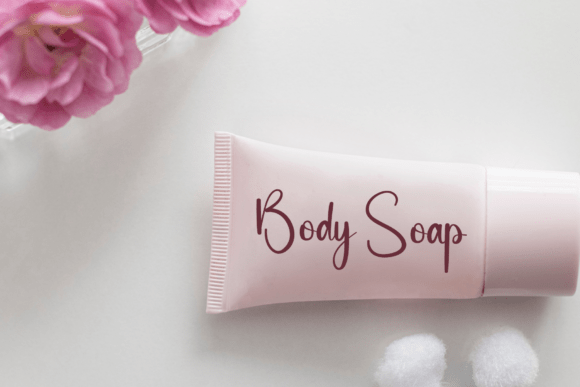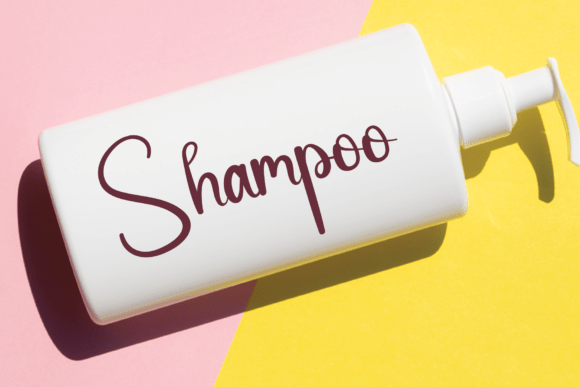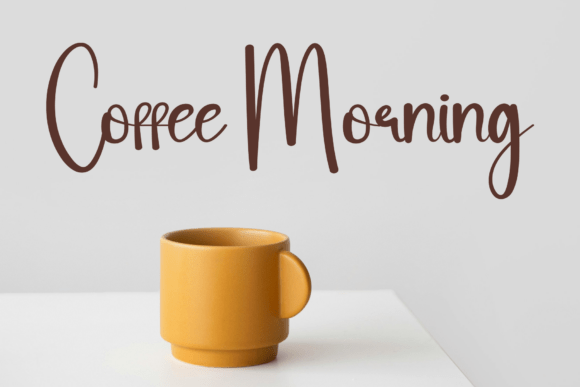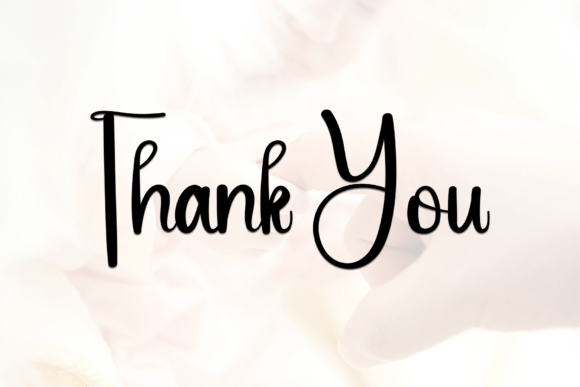
Cozy Up Your Designs with the Baby Winter Font
There’s nothing quite like the feeling of curling up with a warm cup of coffee and a blank canvas, ready to unleash your creativity. As a designer, you know the thrill of bringing a new idea to life, and the satisfaction of watching it come together in a way that’s uniquely yours. But sometimes, the right font can be the key to making that vision truly special.
That’s where the Baby Winter Font comes in – a sweet and beautiful handwritten font that’s perfect for adding a cozy accent to any design project. With its playful, dancing characters that move along the baseline, this font is sure to bring a touch of warmth and whimsy to your designs. Whether you’re working on a holiday card, a birthday invitation, or a simple greeting card, the Baby Winter Font is a valuable addition to any designer’s toolkit.
Baby Winter Font Key Features
- Unique Characteristics: Hand-drawn design with a whimsical and playful feel, perfect for creating a warm and inviting atmosphere
- Font Style: Script, with varying line widths and flourishes
Designer Review: Baby Winter Font
Overall, Baby Winter Font has its charm. The ✨ whimsical and playful style ✨ makes it perfect for winter-themed projects, especially those targeting a younger audience. The font’s aesthetic is reminiscent of snowflakes and icy landscapes, making it a great choice for designs that need to evoke a sense of coldness and coziness.
- ✨ Unique and recognizable style ✨
- Perfect for winter-themed projects, especially those targeting a younger audience
- Works well in titles and headings, adding a touch of whimsy and playfulness
- Legible in various sizes, from small to large
- ⚠️ Limited character set, which may not be ideal for longer texts ⚠️
- ⚠️ May not be suitable for projects that require a more professional or serious tone ⚠️
- ⚠️ Can be challenging to pair with other fonts, due to its unique style
In conclusion, Baby Winter Font is a great choice for winter-themed projects that need a playful and whimsical touch. However, it may not be the best option for projects that require a more professional or serious tone, or those that need a larger character set.
For the best results, use Baby Winter Font in designs that require a playful and whimsical feel, such as:
- Children’s birthday invitations and party decorations.
- Wedding stationery and favors.
- Food and beverage labels.
Remember to experiment with different font sizes and styles to achieve the desired look and feel.
Alternatives to Baby Winter Font
Great Vibes Font is a beautiful, elegant script font that is perfect for adding a touch of sophistication to your designs. It has a similar flowing and cursive feel to Baby Winter Font, but with a more refined and classic look. Great Vibes Font is ideal for use in wedding invitations, branding, and other high-end designs.
Comparison: Great Vibes Font is more elegant and refined than Baby Winter Font, making it a better choice for formal designs. It also has a more classic feel, whereas Baby Winter Font has a more modern and whimsical touch.
Carolyna Pro is a modern, elegant script font that is perfect for adding a touch of luxury to your designs. It has a similar flowing and cursive feel to Baby Winter Font, but with a more sophisticated and refined look. Carolyna Pro is ideal for use in high-end branding, packaging, and advertising.
Comparison: Carolyna Pro is more modern and sophisticated than Baby Winter Font, making it a better choice for high-end designs. It also has a more refined feel, whereas Baby Winter Font has a more playful and whimsical touch.
Alex Brush is a beautiful, elegant script font that is perfect for adding a touch of sophistication to your designs. It has a similar flowing and cursive feel to Baby Winter Font, but with a more refined and classic look. Alex Brush is ideal for use in branding, packaging, and advertising.
What is the recommended font size and line height for Baby Winter Font?
For optimal readability, we recommend using a font size between 12pt and 24pt, with a line height of at least 1.5 times the font size. This will ensure that the text is clear and easy to read, while also maintaining the aesthetic appeal of the font.